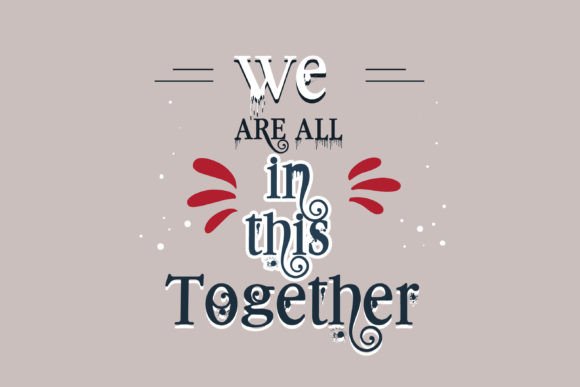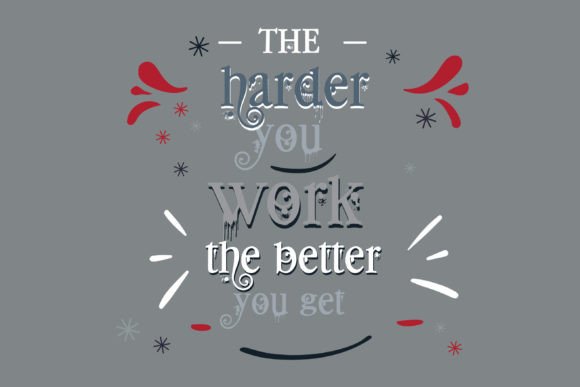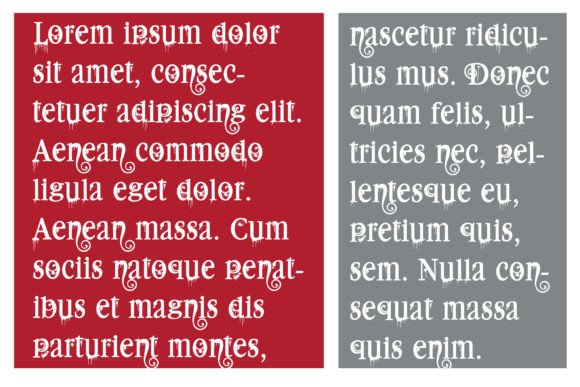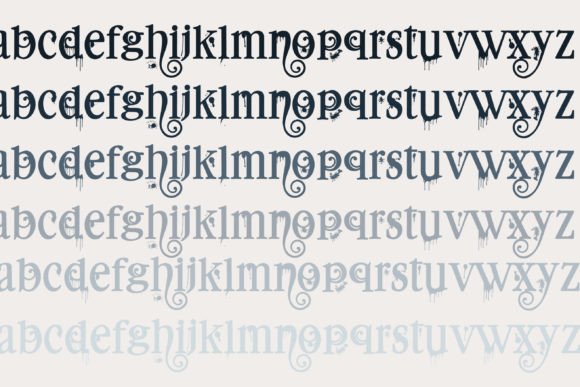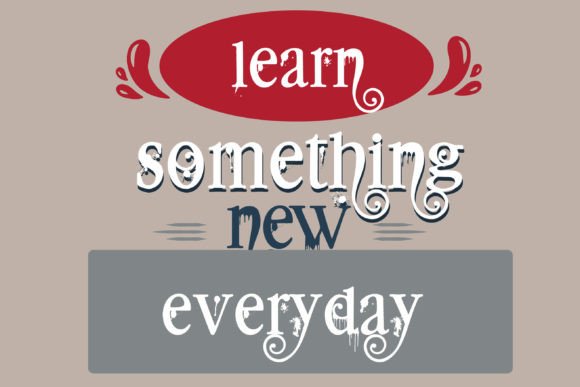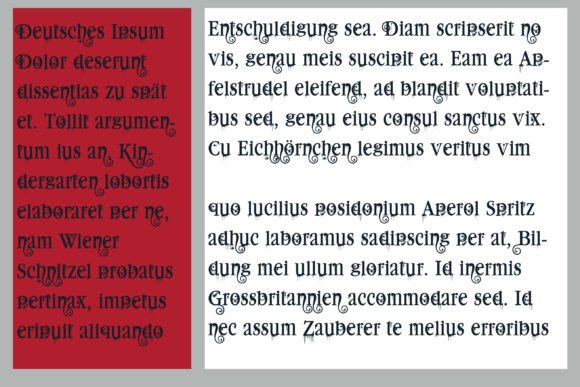
Introduction to Millionaire Murder Font Font
Fonts play a crucial role in design, and the Millionaire Murder Font font is a typeface that brings both character and versatility to any project. Whether you’re working on a branding project, a website, or a print design, the Millionaire Murder Font font offers a unique style that can elevate your work.
Millionaire Murder is a formal serif display font that is oozing with murderous intent.
This terrifying font is perfect for all your horror-themed or Halloween designs .
Key Features of Millionaire Murder Font Font
Why Choose Millionaire Murder Font Font?
The Millionaire Murder Font font is more than just a typeface – it’s a design tool that helps you communicate your message with style and clarity. Its unique character set and versatile design make it suitable for a wide range of applications, from elegant invitations to bold headlines.
With its carefully crafted letterforms and balanced proportions, the Millionaire Murder Font font ensures readability and visual appeal across all mediums.
What makes Millionaire Murder Font font special?
The Millionaire Murder Font font stands out with its unique design, exceptional readability, and versatility across various design applications.